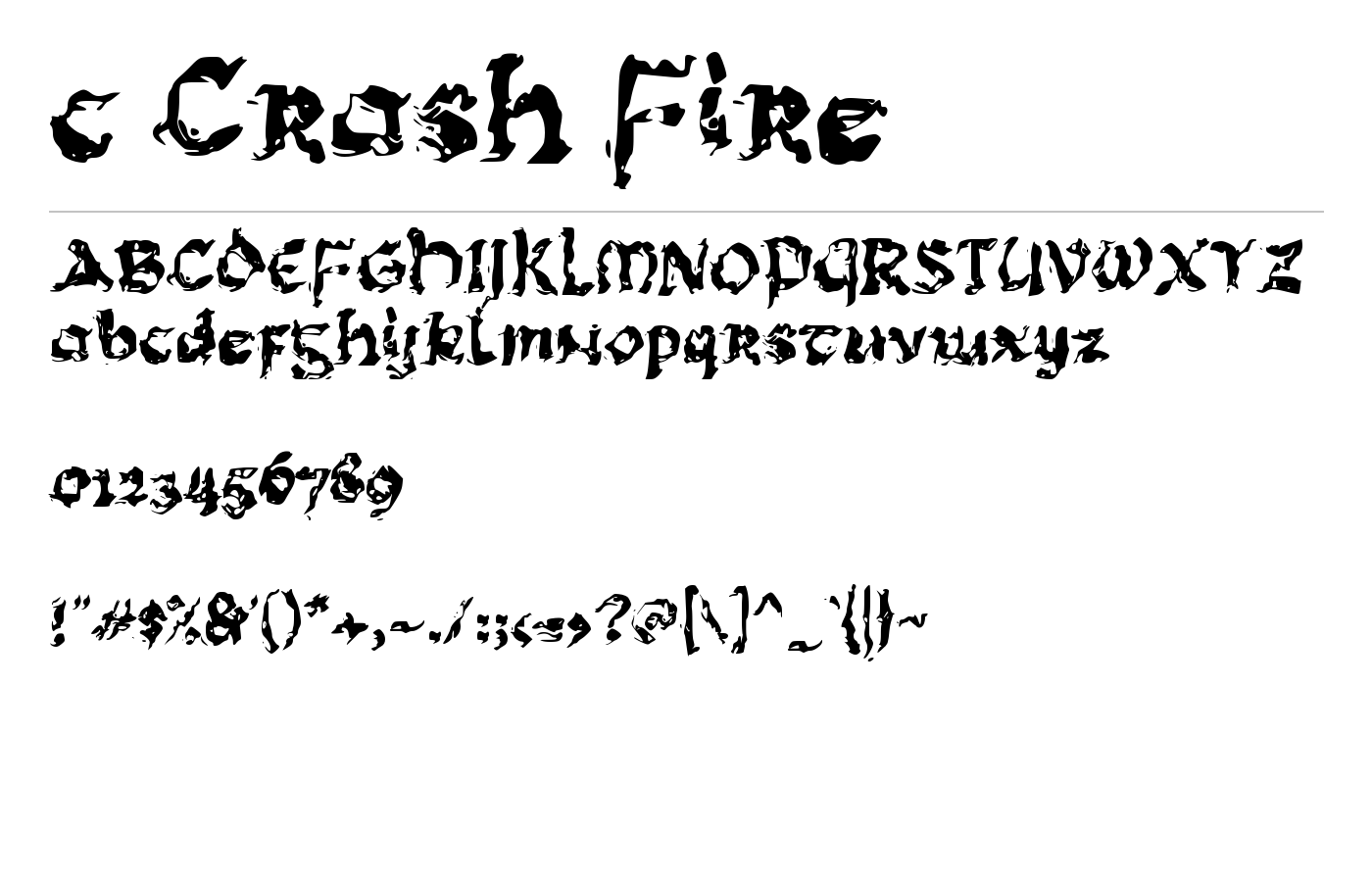
Crash Fire is a unique display font with a distressed, flame-like texture that gives it a dramatic, edgy feel. Its irregular shapes and bold, heavy strokes create a chaotic yet eye-catching style perfect for horror, thriller, or rebellious-themed designs. This font works best for striking headlines, posters, and branding that needs a fierce, energetic personality.
c Crash Fire Font
About c Crash Fire Font